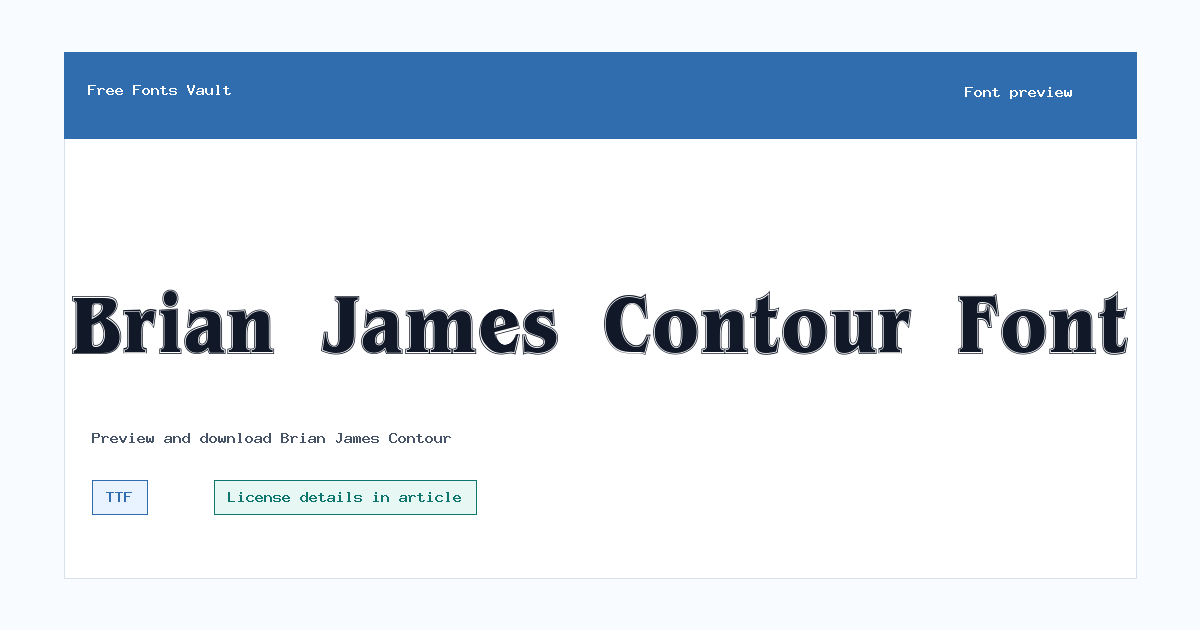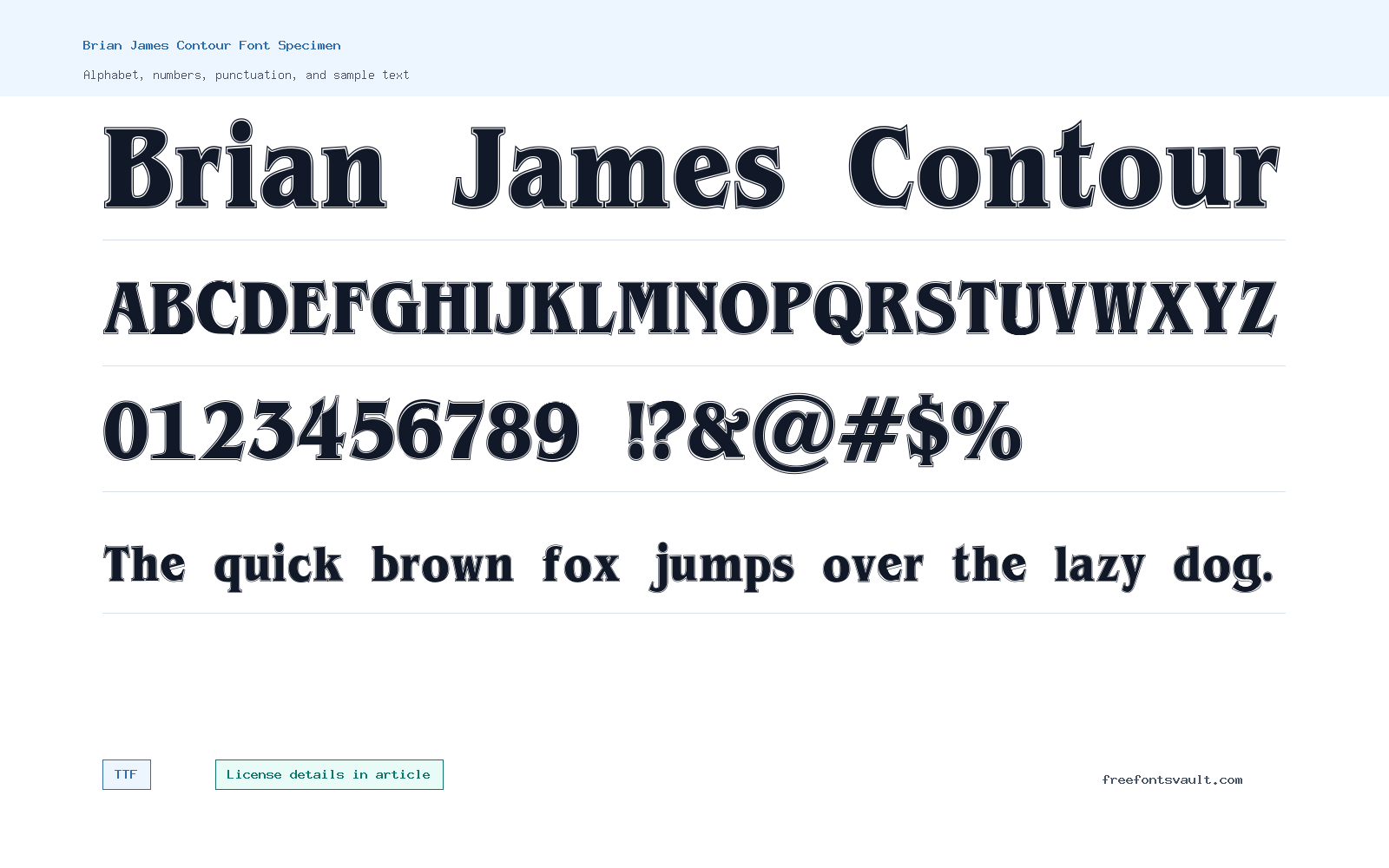
Brian James Contour
Brian James Contour font preview showing the family name
Brian James Contour Font
Brian James Contour font specimen showing alphabet, numbers, and sample text
Brian James Contour font.
Brian James Contour is an outline display font with open letter shapes made for short, visual text rather than long reading.
About Brian James Contour Font
Brian James Contour is listed as a regular 400-weight TTF file named brian-james.contour.ttf. The contour construction gives the letters a lighter, outlined look, so the text can become part of the graphic instead of sitting quietly in the background. It is a decorative display choice, not a body-copy workhorse.
Use it where the lettering has space: posters, covers, labels, stickers, event graphics, nameplates, social images, and title mockups. The outline style can look sharp at larger sizes, but it may lose clarity if used too small or placed on a busy image. Preview your real words first and test both light and dark backgrounds.
For stronger layouts, pair Brian James Contour with a plain companion font. Let the contour style handle one display line, then set dates, descriptions, prices, or paragraphs in something simpler. That keeps the decorative effect visible without making the full page hard to read. If you are designing for print, give the outline enough stroke contrast and leave open space around the word. In web or thumbnail use, export a quick proof at the final pixel size so the contour does not collapse into a thin blur.
• Contour outline letter style for decorative display use
• Best at medium to large sizes where outlines stay clear
• Useful for short title treatments and visual accents
• Pairs well with simple text fonts for supporting copy
• Posters, covers, event graphics, and display headings
• Labels, stickers, packaging mockups, and social graphics
• Short names, title cards, and decorative wordmarks
• Previewing outline typography before final design
• Layouts where the headline can be treated as a graphic element
Brian James Contour is credited to Typographer Mediengestaltung. No separate foundry website is listed in the font data.
Use this font large enough for the outline details to remain clear. Avoid long paragraphs, and keep the background simple unless you have tested contrast carefully in the final artwork. For best results, set one display line in Brian James Contour and keep the rest of the layout plain and readable.
What type of font is Brian James Contour?
It is a decorative contour or outline display font for short text, headings, posters, labels, and graphic accents.
Is Brian James Contour good for paragraphs?
No. The outline style is better for short display text. Use a simpler companion font for paragraphs and details.